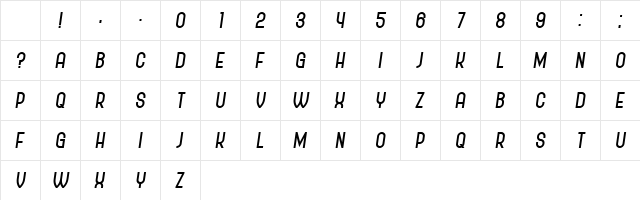
Policemen is a composed and adaptable typeface that performs quietly and consistently across a wide range of design contexts. The slanted form adds forward momentum and visual energy.
Pro Tip: Use Policemen for emphasis, pull quotes, and subheadings where its slanted energy can add rhythm to the layout.